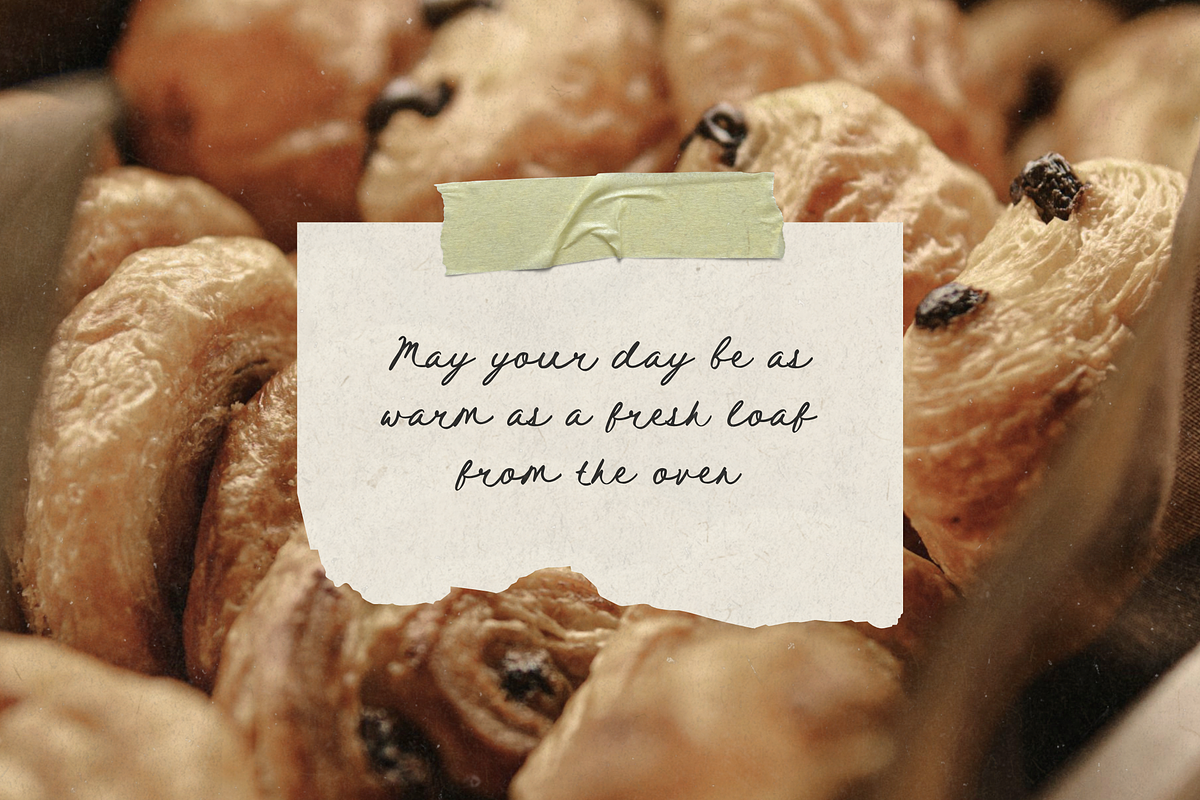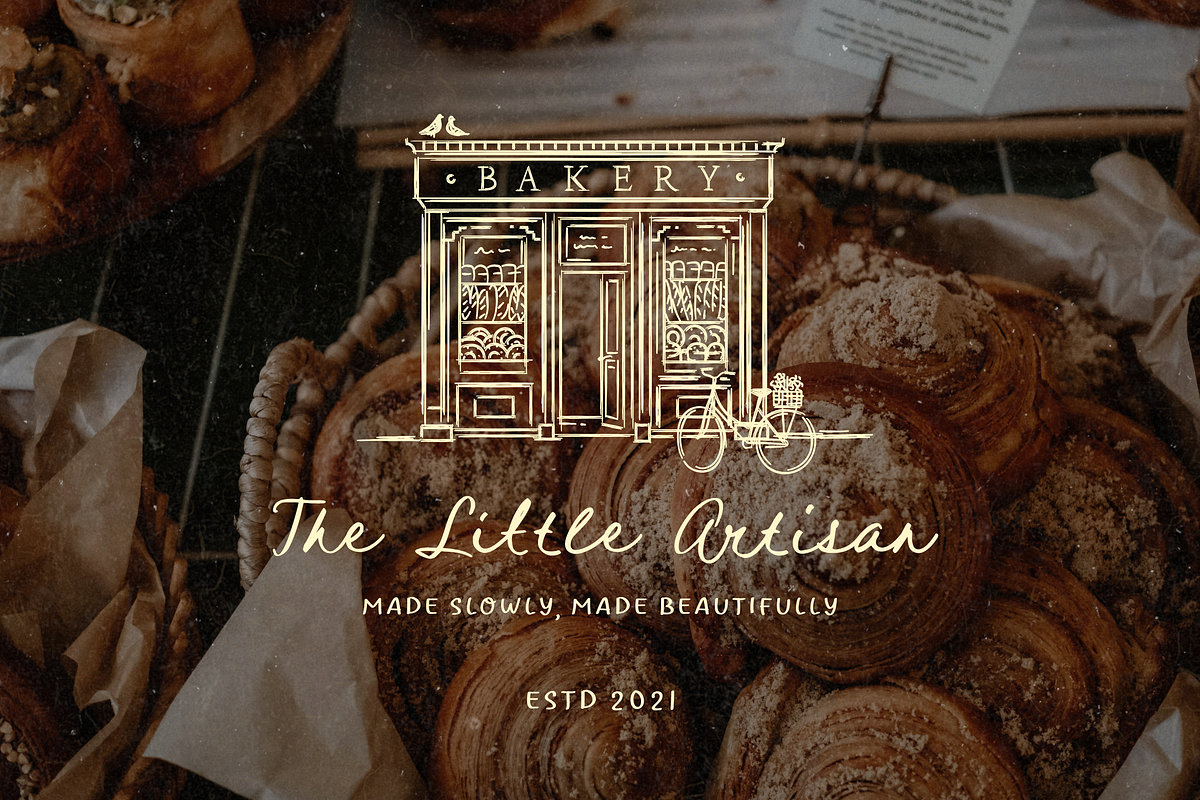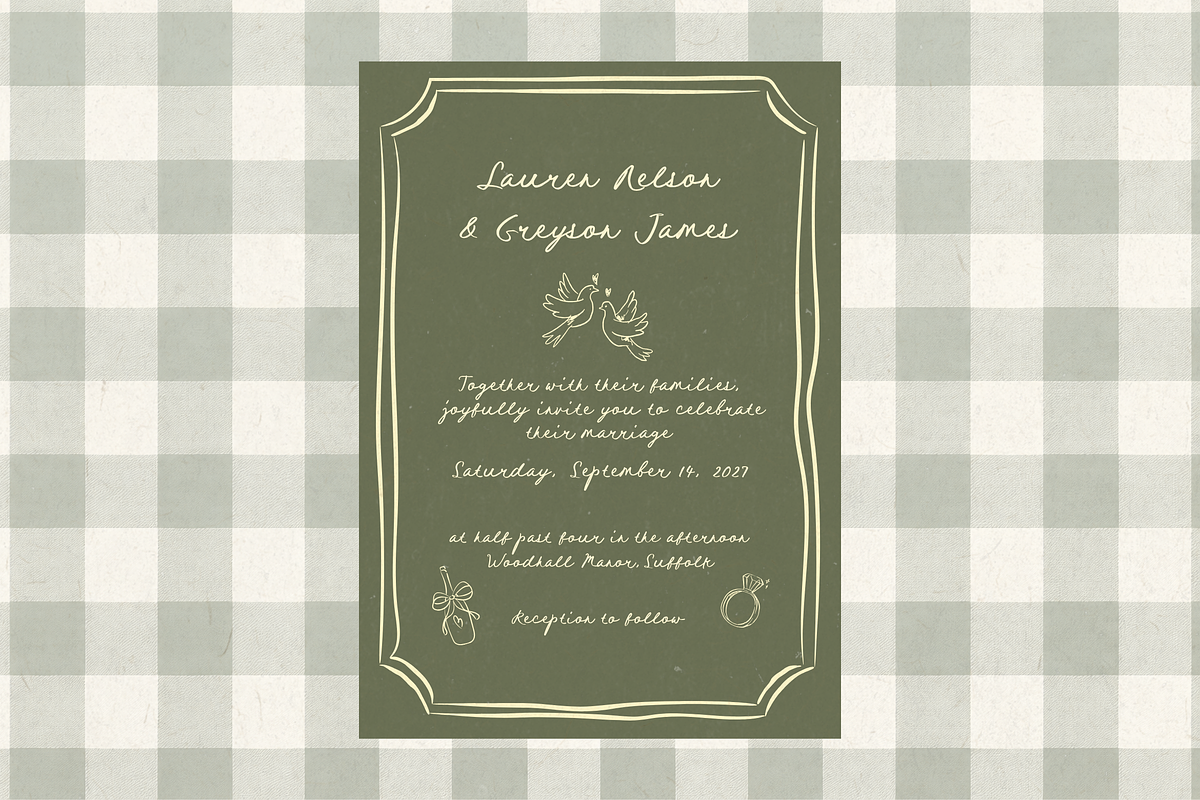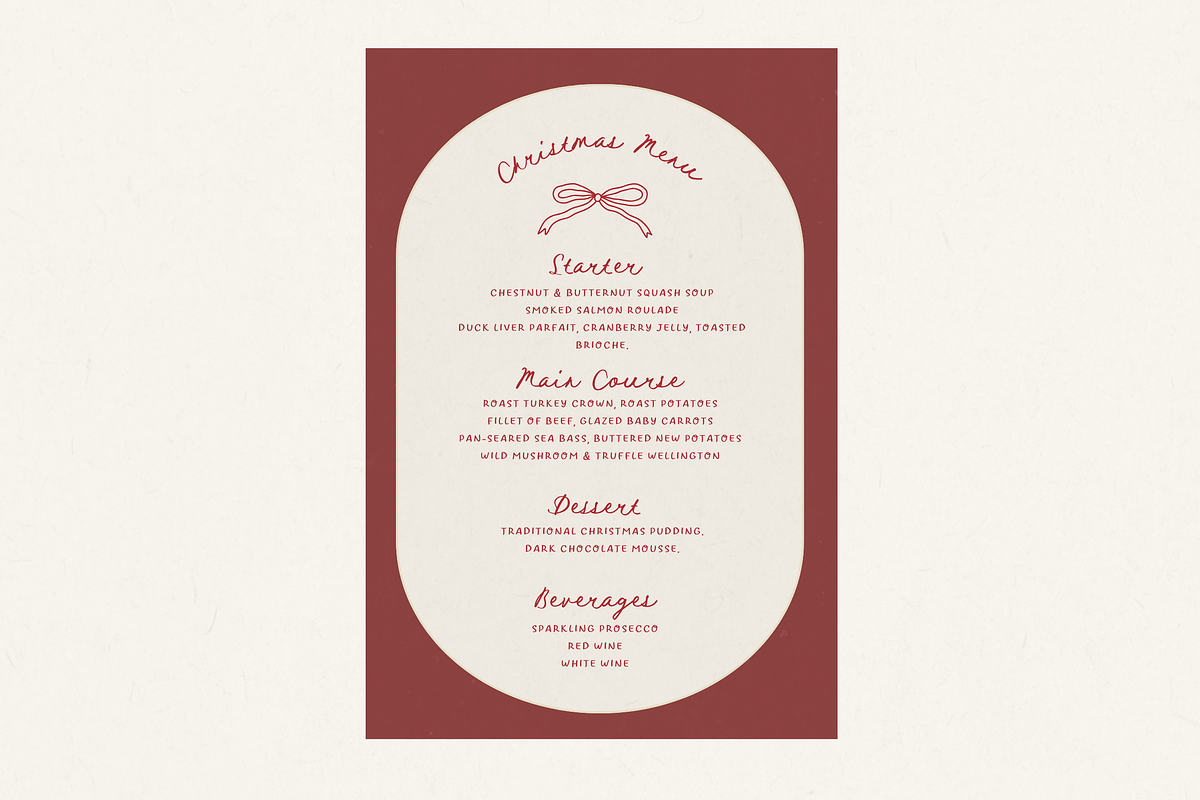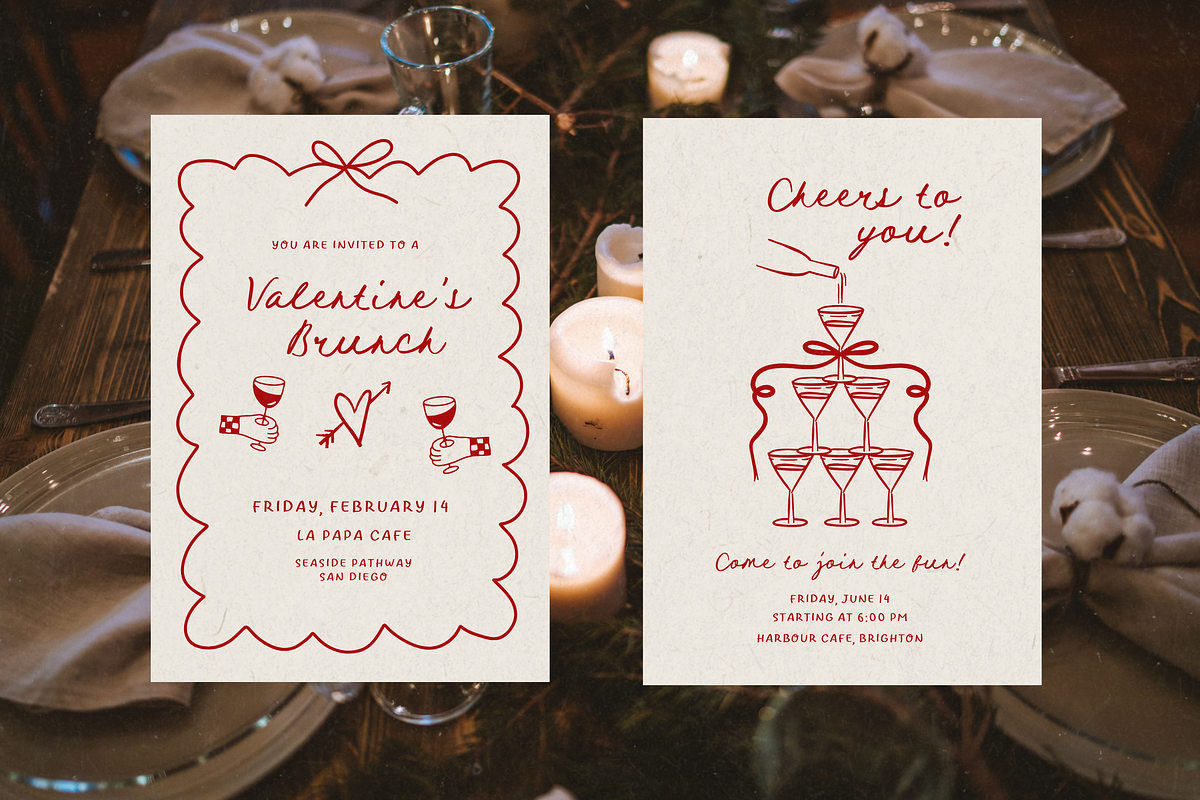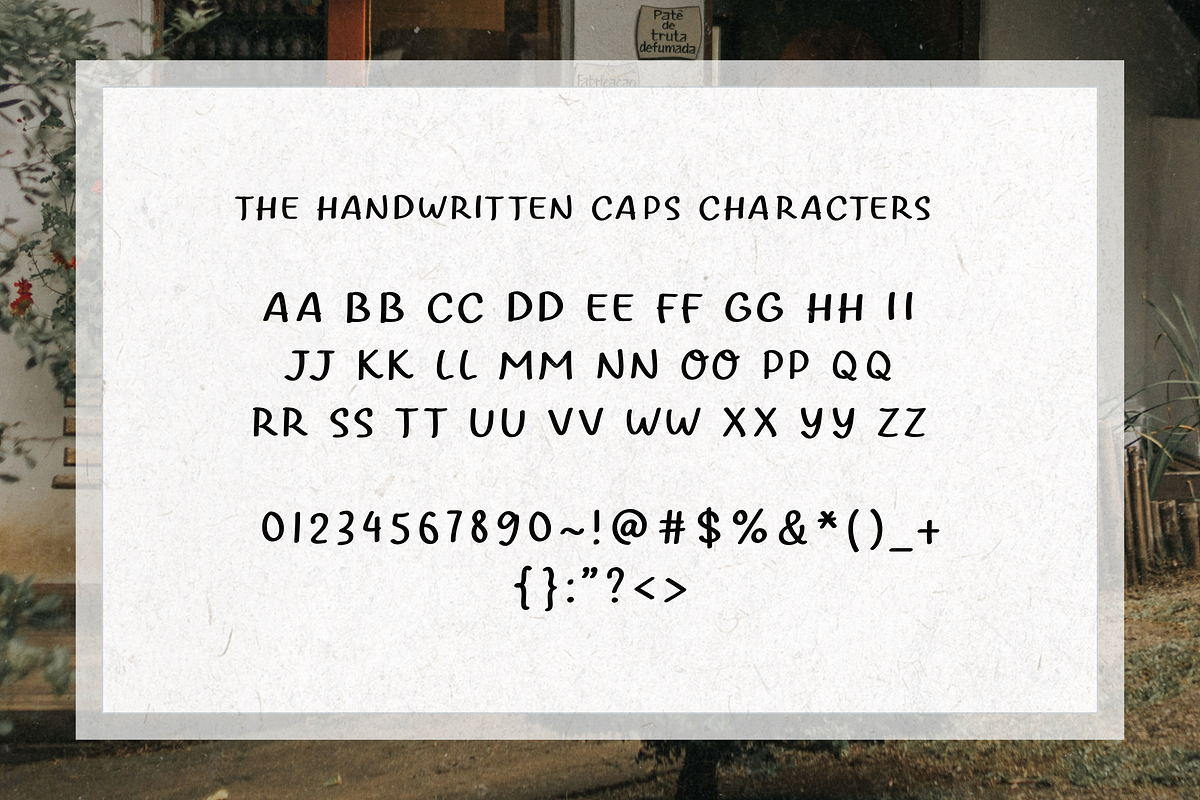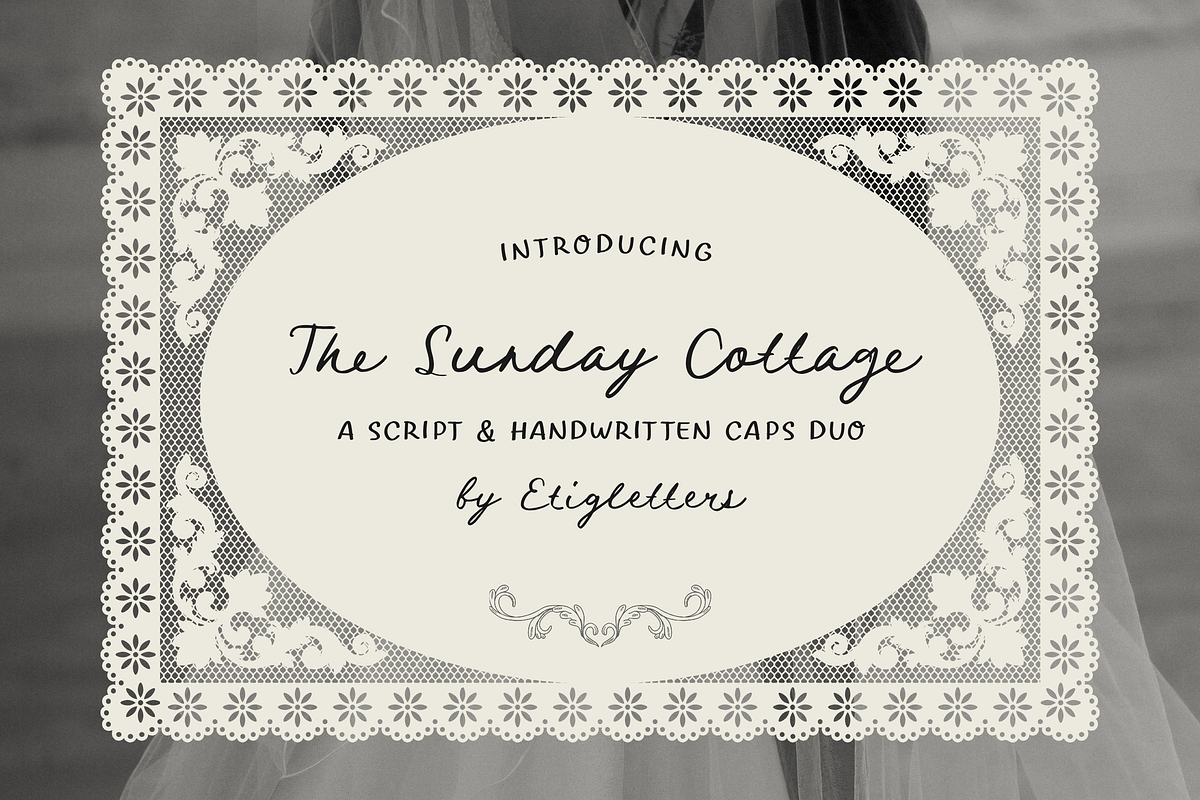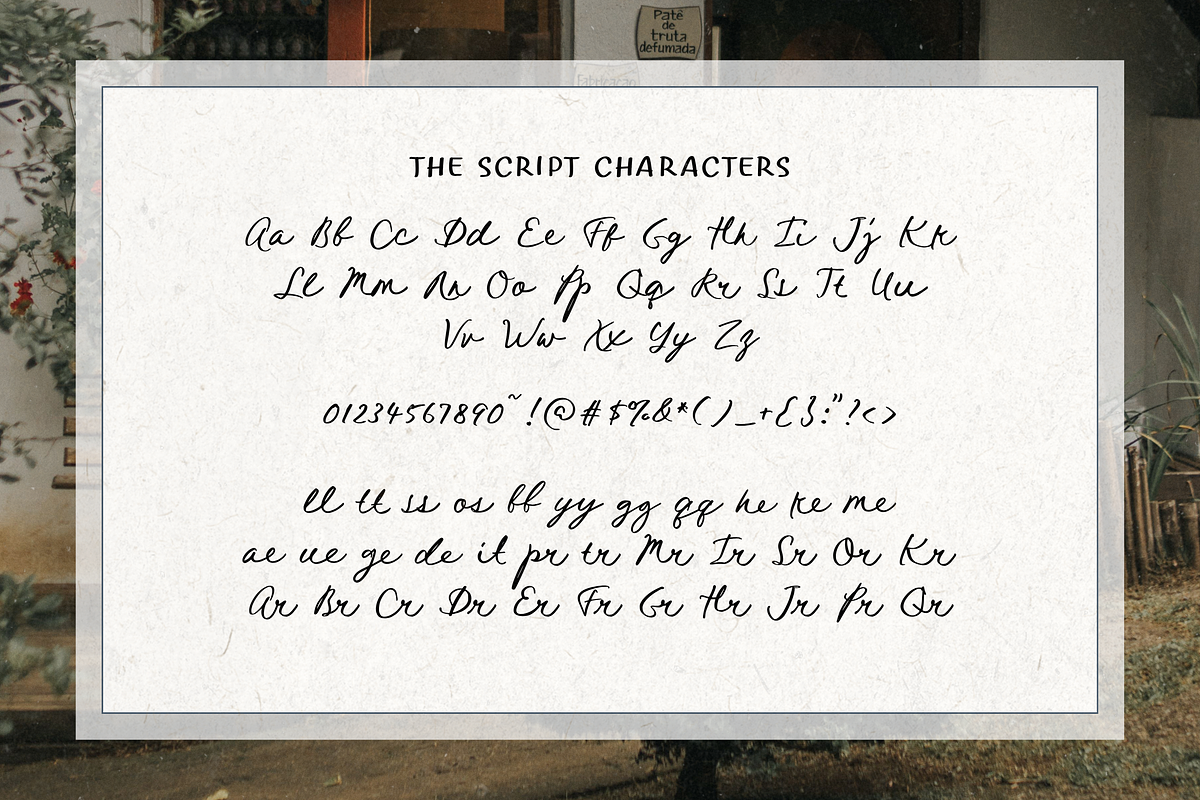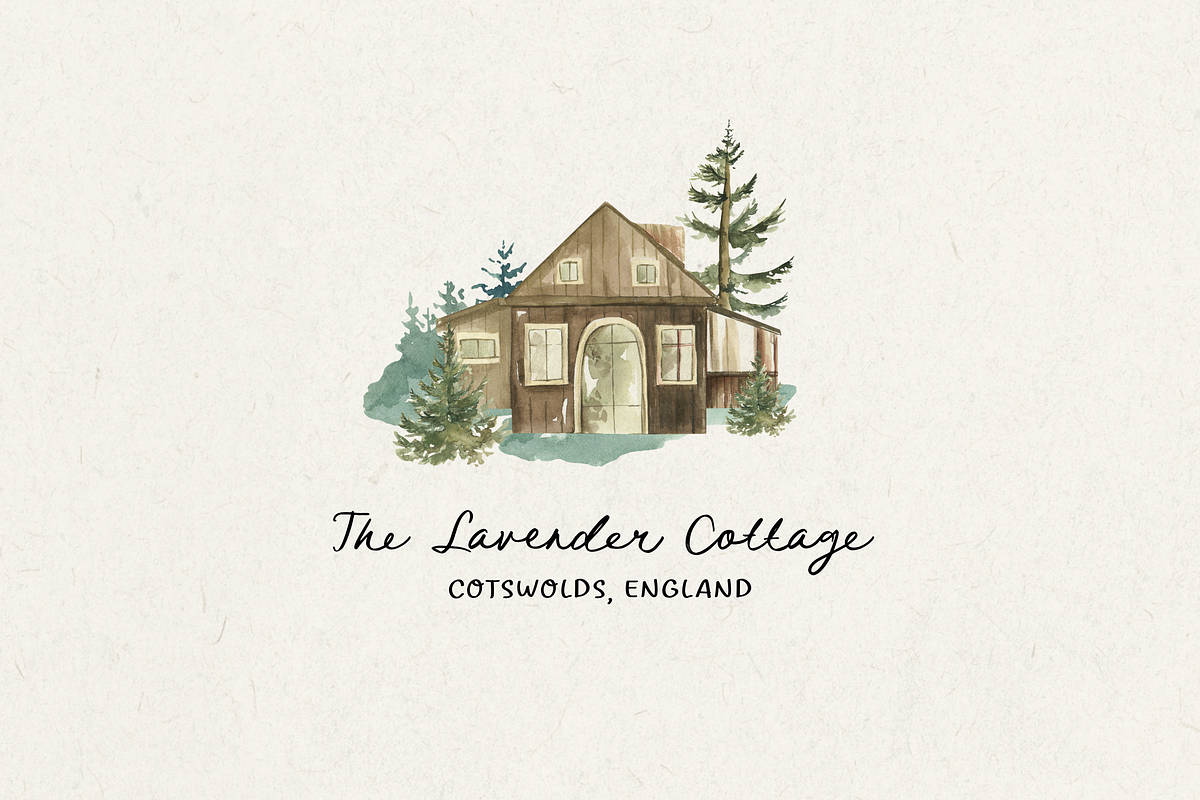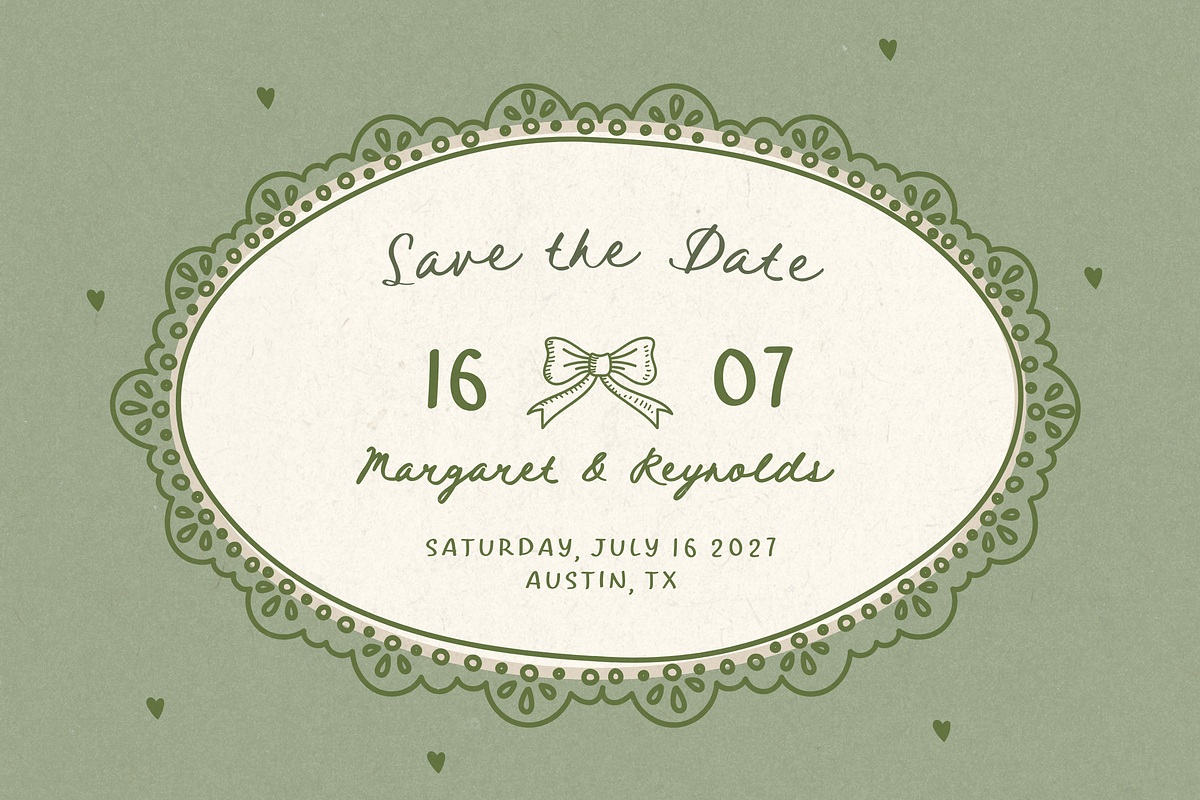
The Sunday Cottage - Handwritten Duo
Introducing The Sunday Cottage – A Script & Handwritten Caps Duo
Bring warmth, elegance, and a cozy handwritten charm to your designs with The Sunday Cottage! This thoughtfully crafted font duo pairs a graceful, flowing script with a complementary handwritten uppercase/caps font, making it incredibly versatile for all your creative projects.
Whether you are designing romantic wedding invitations, vintage-inspired packaging, cozy branding, or social media quotes, The Sunday Cottage provides the perfect aesthetic balance.
Full set of Uppercase and Lowercase characters
Numbers, Punctuation, and Symbols
- Wedding Stationery & Greeting Cards
Brand Identity, Logos & Taglines
Product Packaging & Labels
Editorial Design & Quotes
Social Media Graphics & Pinterest Pins